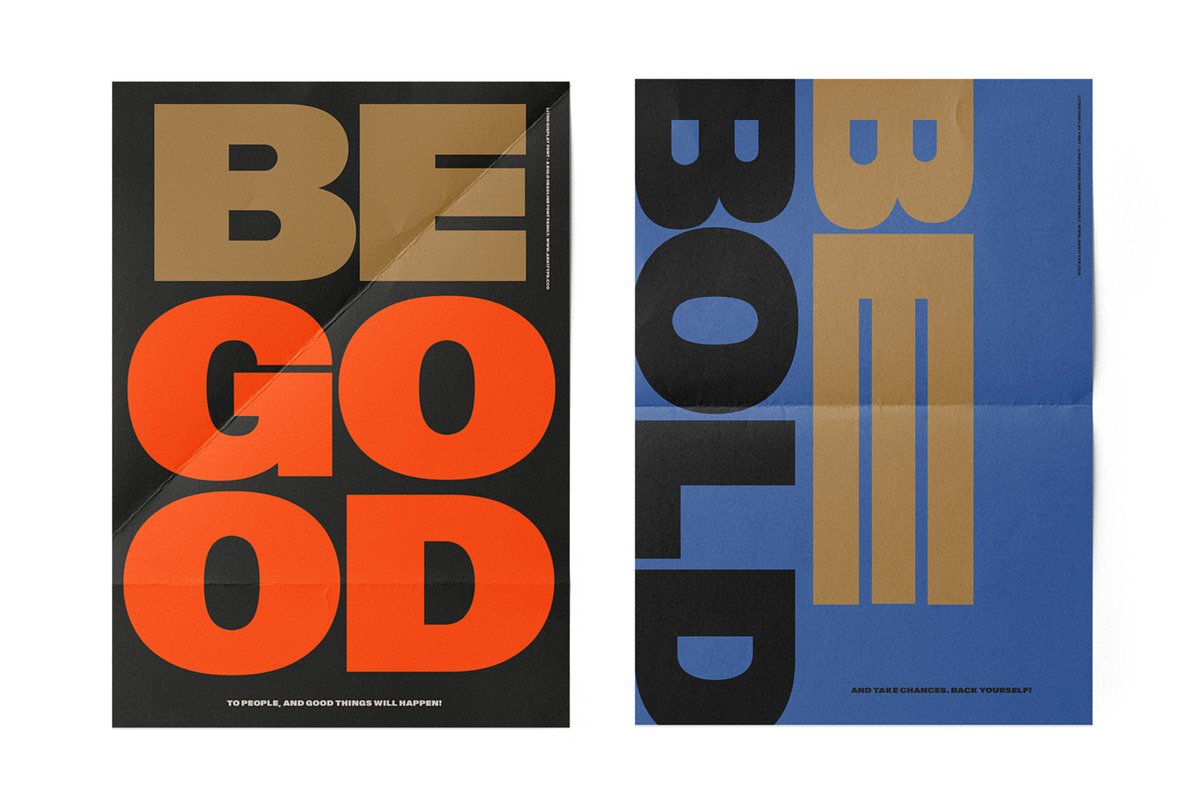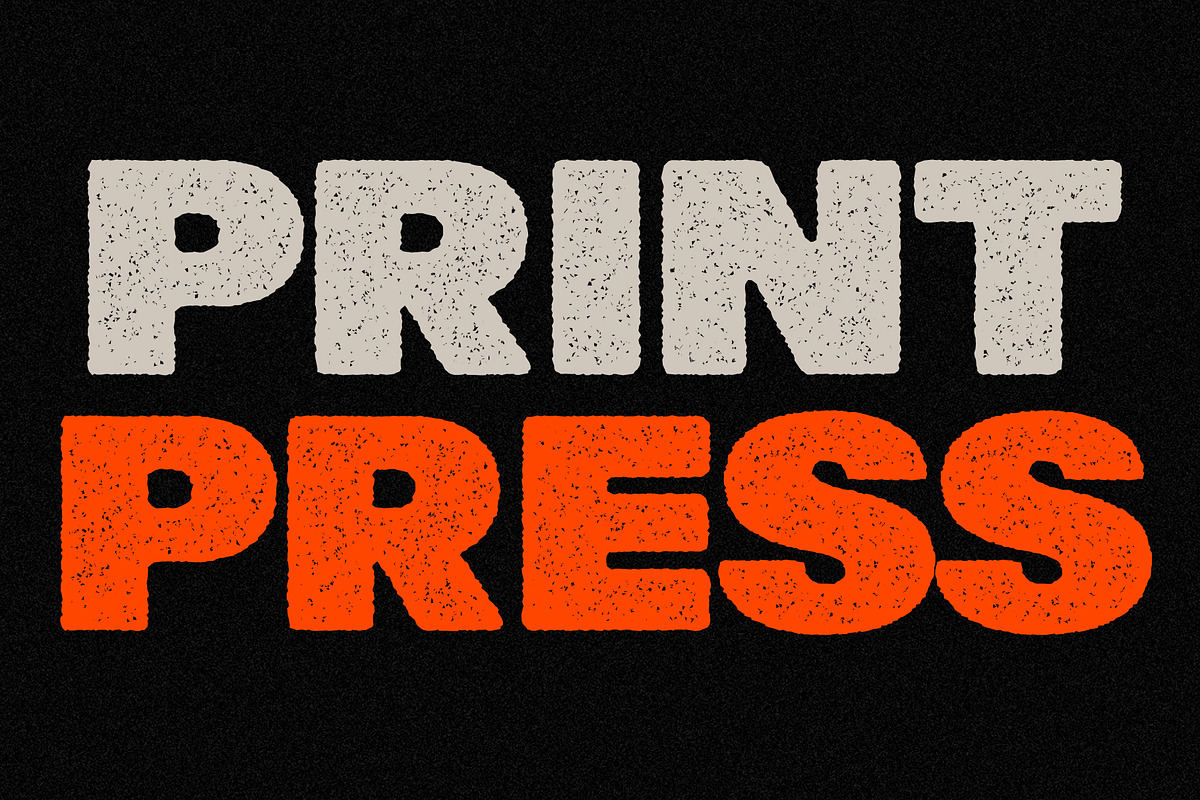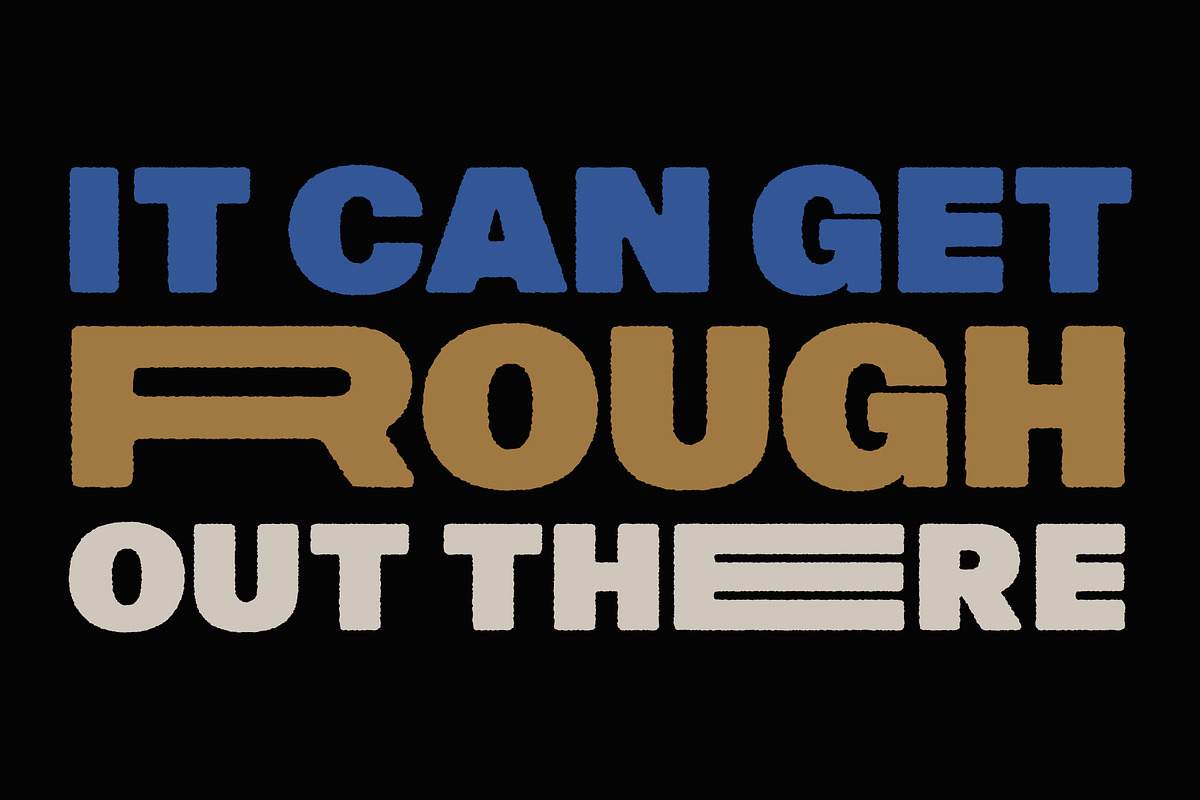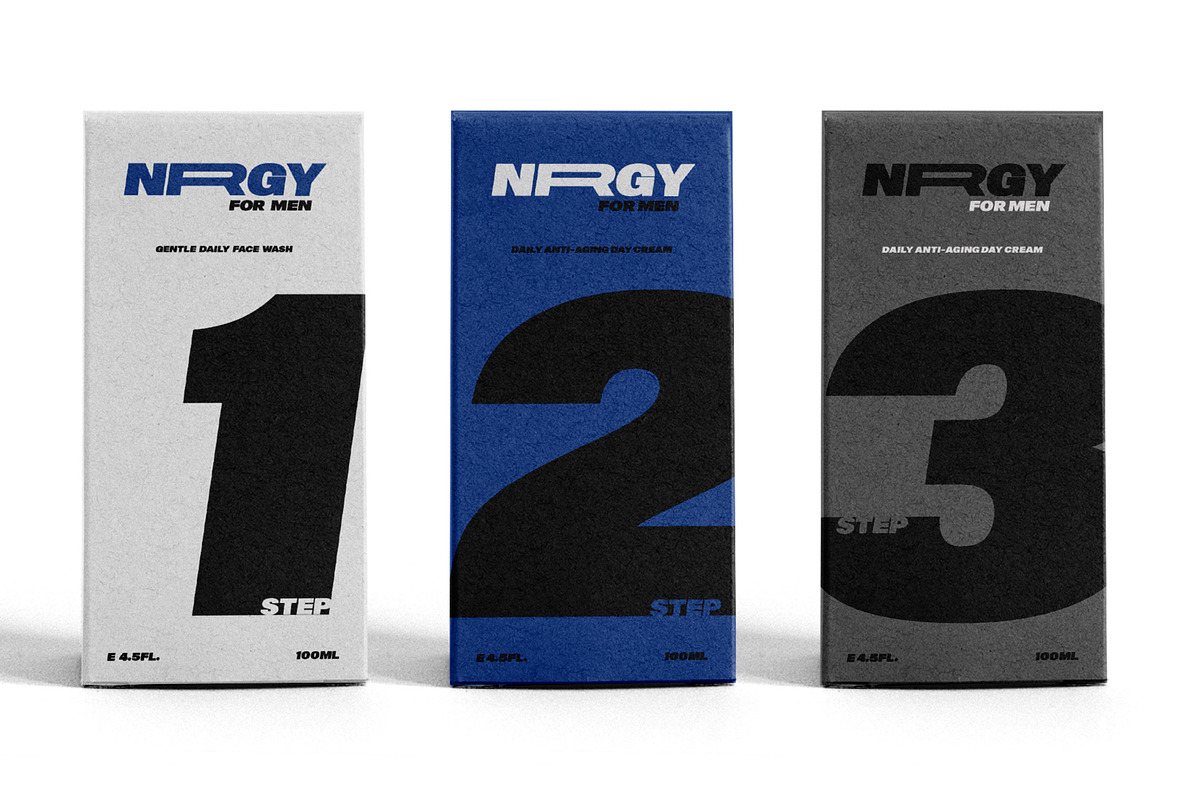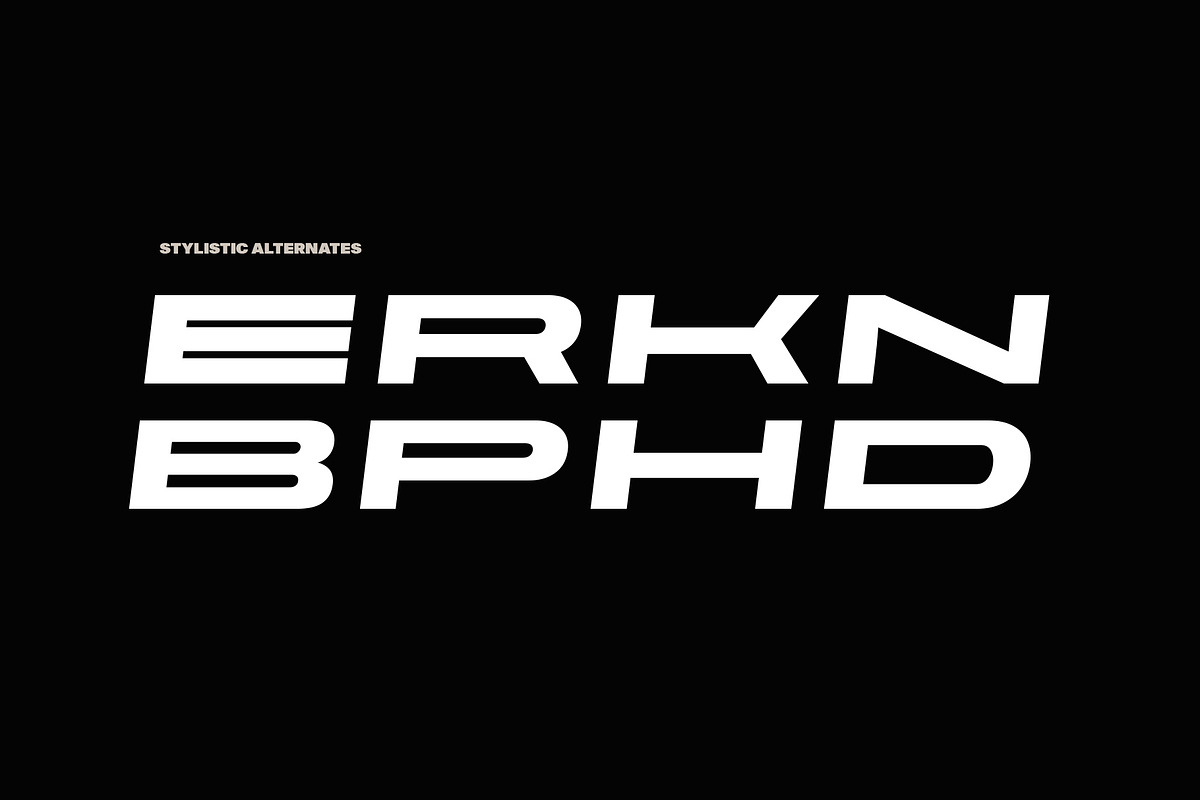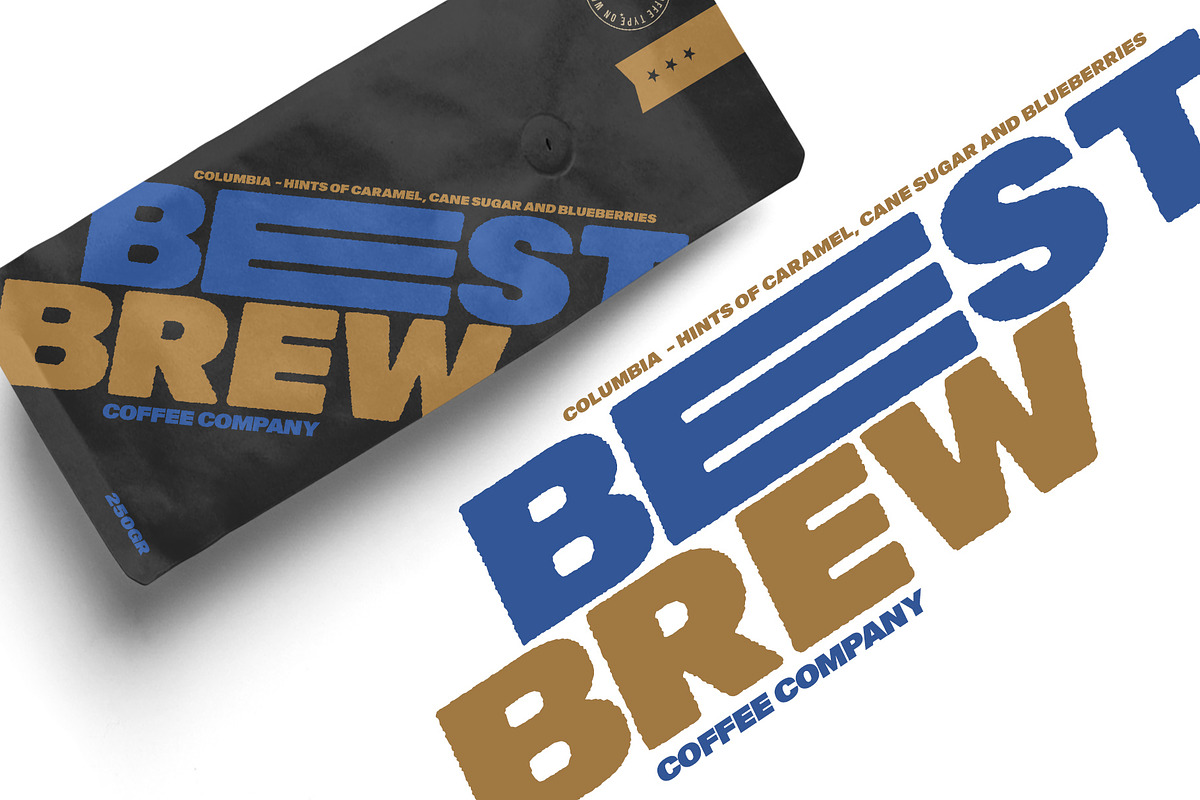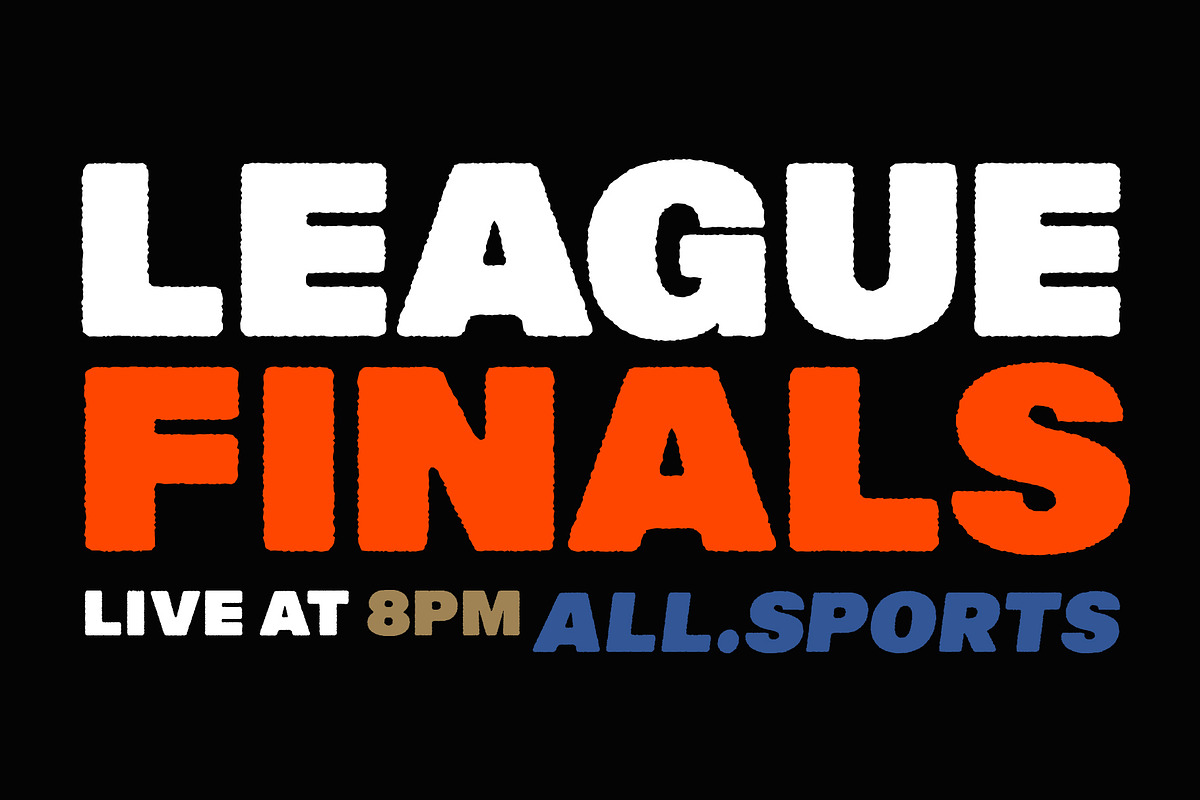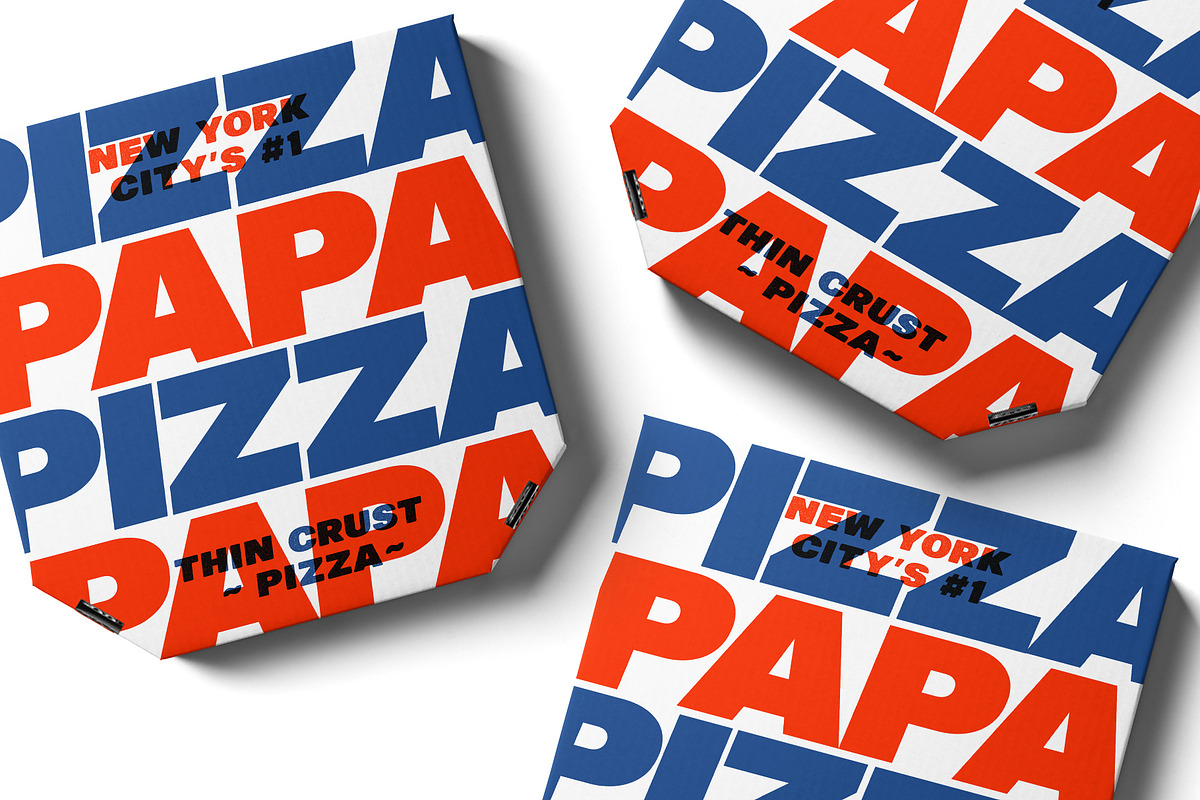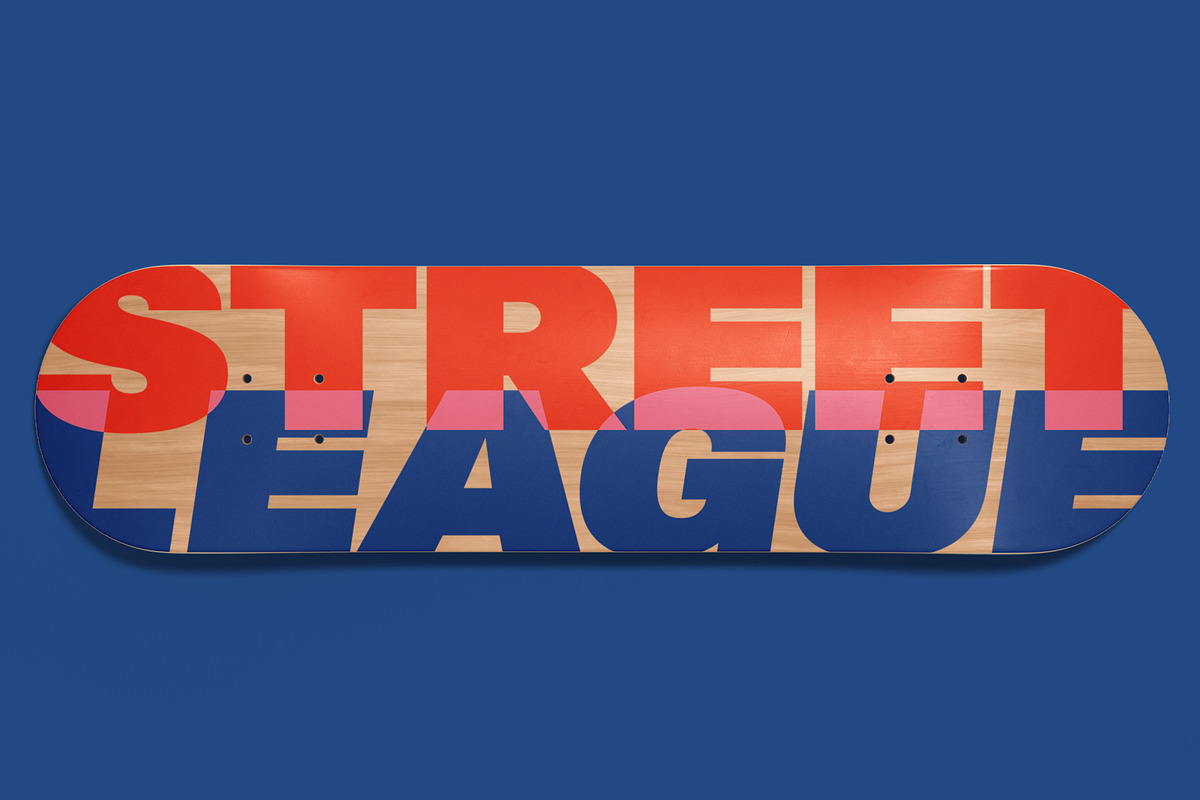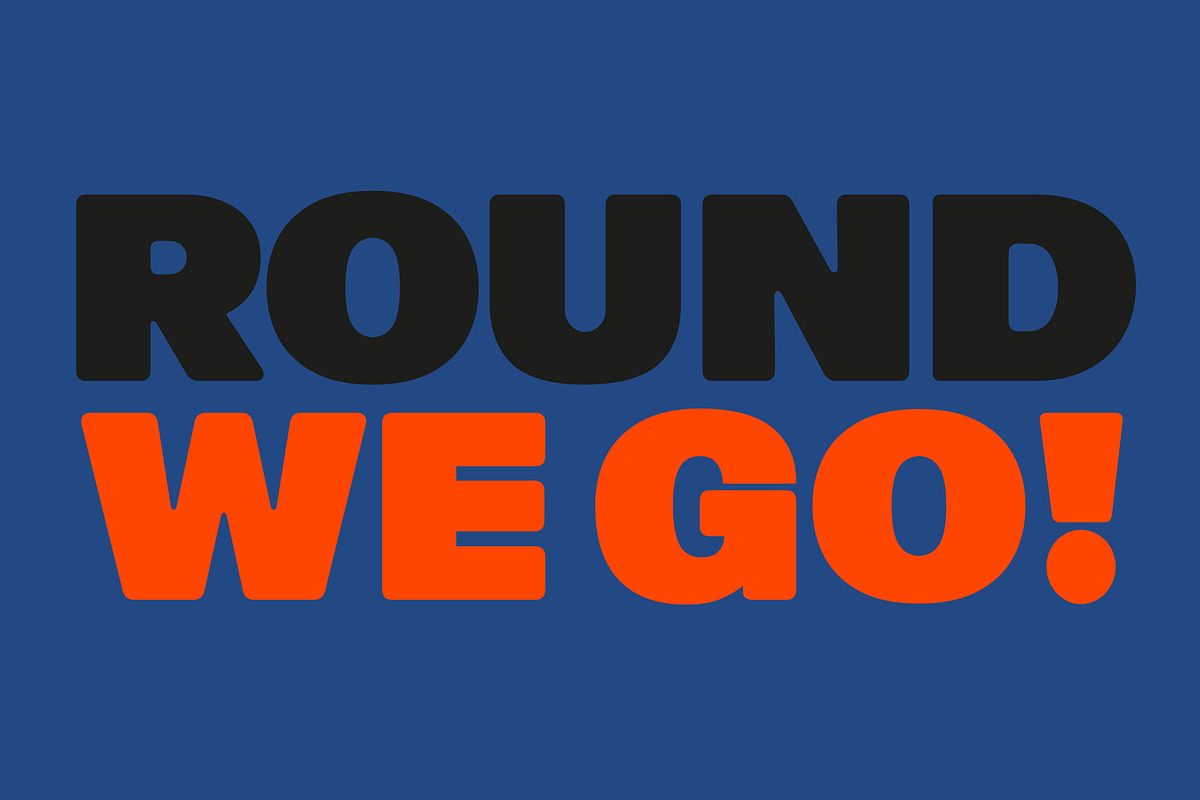
Litho Display
Litho Display is a bold display typeface, it has 8 fonts in the family with four different styles. Litho Display has been created with bold headline and poster typography in mind. It is perfect for use on typography heavy posters, packaging or on screen idents.
The four different styles Litho Display comes in is Regular, Rounded, Rough and Press each with an italic pairing. With these styles Litho Display is versatile for various different uses whether it needs to be clean type for a poster or on screen or a more rough and rustic style for some packaging.